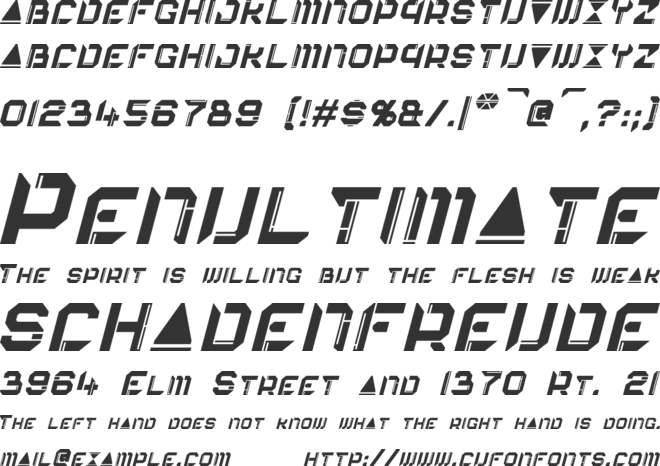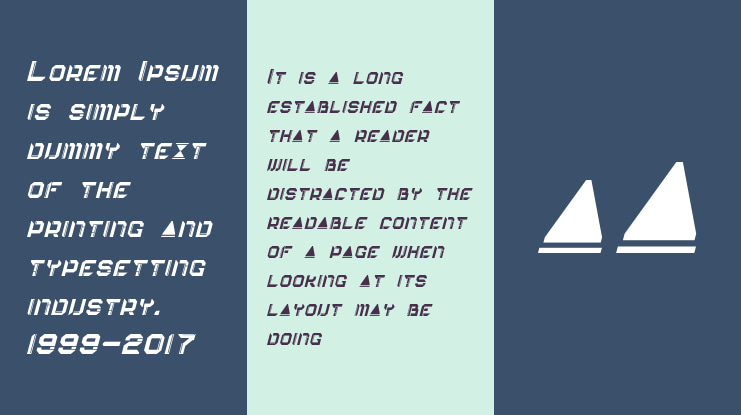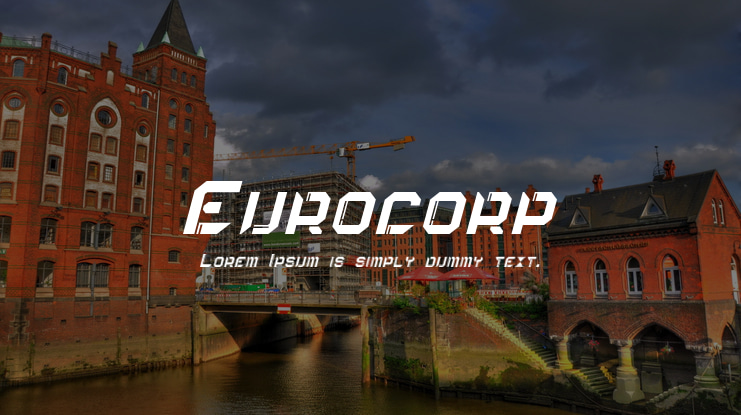
Eurocorp Font
Neale Davidson
Eurocorp is based on the heavily-stylized lettering found in the classic Syndicate game from Bullfrog Interactive. The face features a sharp, angular look distressed by circuitry patterns. Includes full alphabet, extended punctuation, Euro. Includes regular and italic faces.